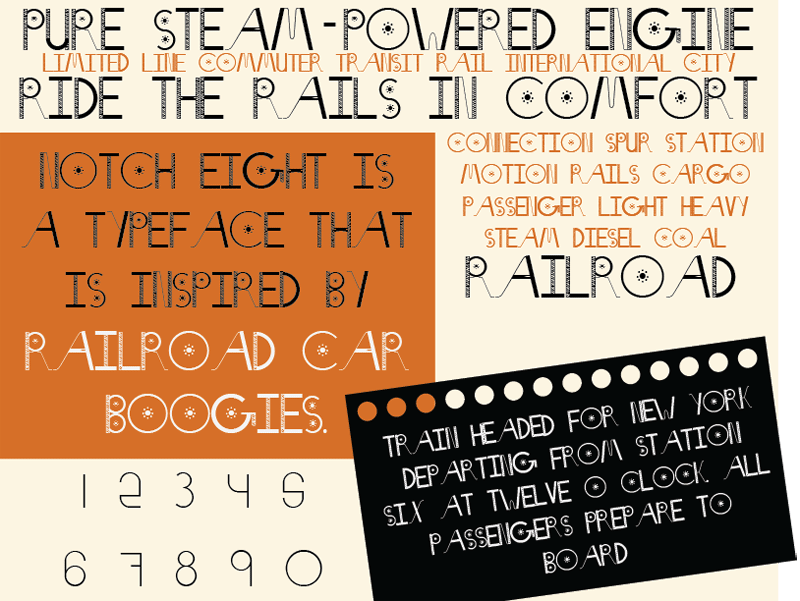
Preview and download Notch Eight Font. Created by Alex Westcott in Fancy Decorative styles with Free for personal use license.
Notch Eight is free for personal use. For all other uses, please contact me at AlexCWestcott@gmail.com Notch Eight is a modular typeface inspired by railroad bogies-the wheeled platform on which the train cars ride. The flowing lines and wheels themselves make up the modules for this typeface. Angles are pulled from bogie edges, making this a more unique type design. The curves are built off of the in-set sections of the train wheels. When a circle is made, a small design of the center wheel hub will be added, giving this typeface more diversity between letters. Flat pieces are given special treatment as well: Verticals mimic the massive springs while horizontals are side views of actual rails. The numbers are inspired by railroad crossing wig-wags, and are built of only straight lines and circles. |